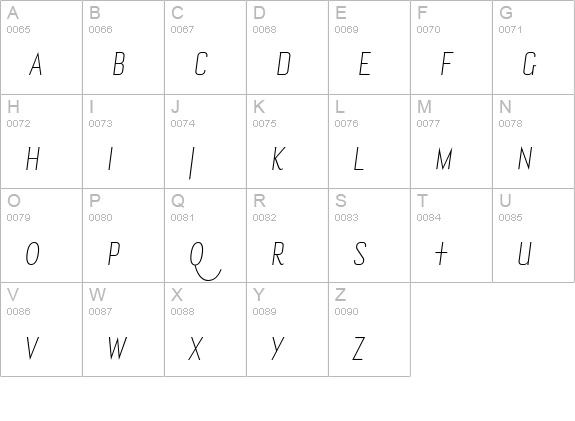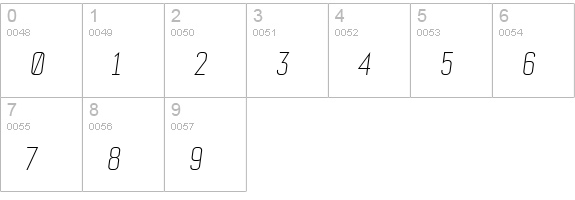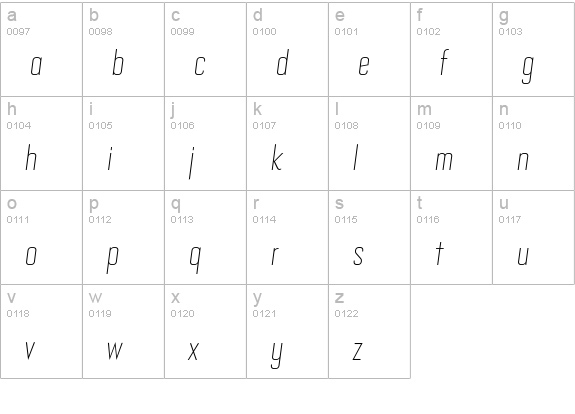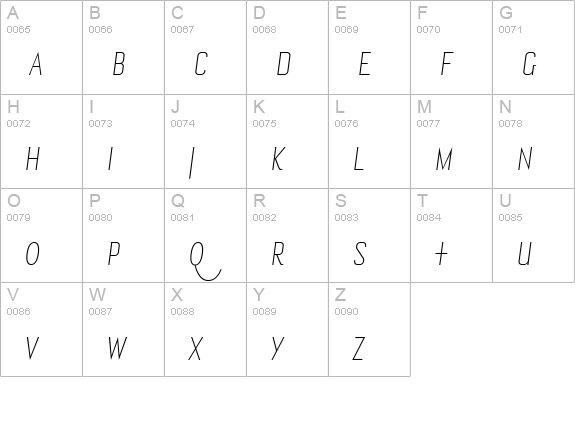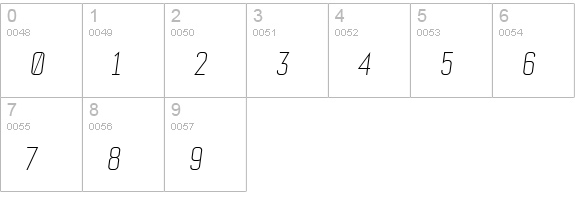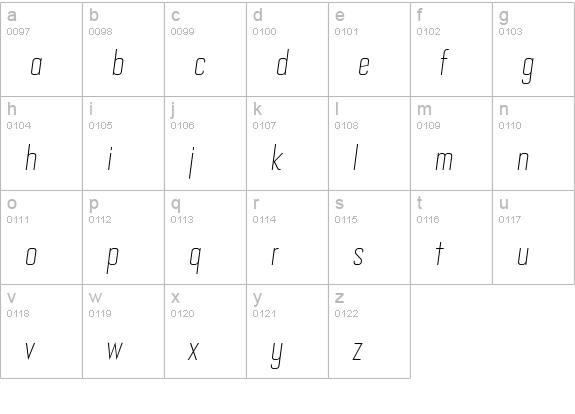
Bourgeois LightCondItalAlt Font Details
Bourgeois LightCondItalAlt is a sophisticated and elegant font that exudes a sense of luxury and refinement. Its slender and graceful letterforms make it perfect for adding a touch of class to any design project. The italicized alternate version of the font adds a unique flair, perfect for creating eye-catching headers or stylish branding. What makes Bourgeois LightCondItalAlt even more appealing is that it is available for free download at FontsMarket.com. This means that you can elevate your designs with this exquisite font without breaking the bank. Don't miss out on the opportunity to enhance your projects with the timeless beauty of Bourgeois LightCondItalAlt. Download it now and let your creativity shine!